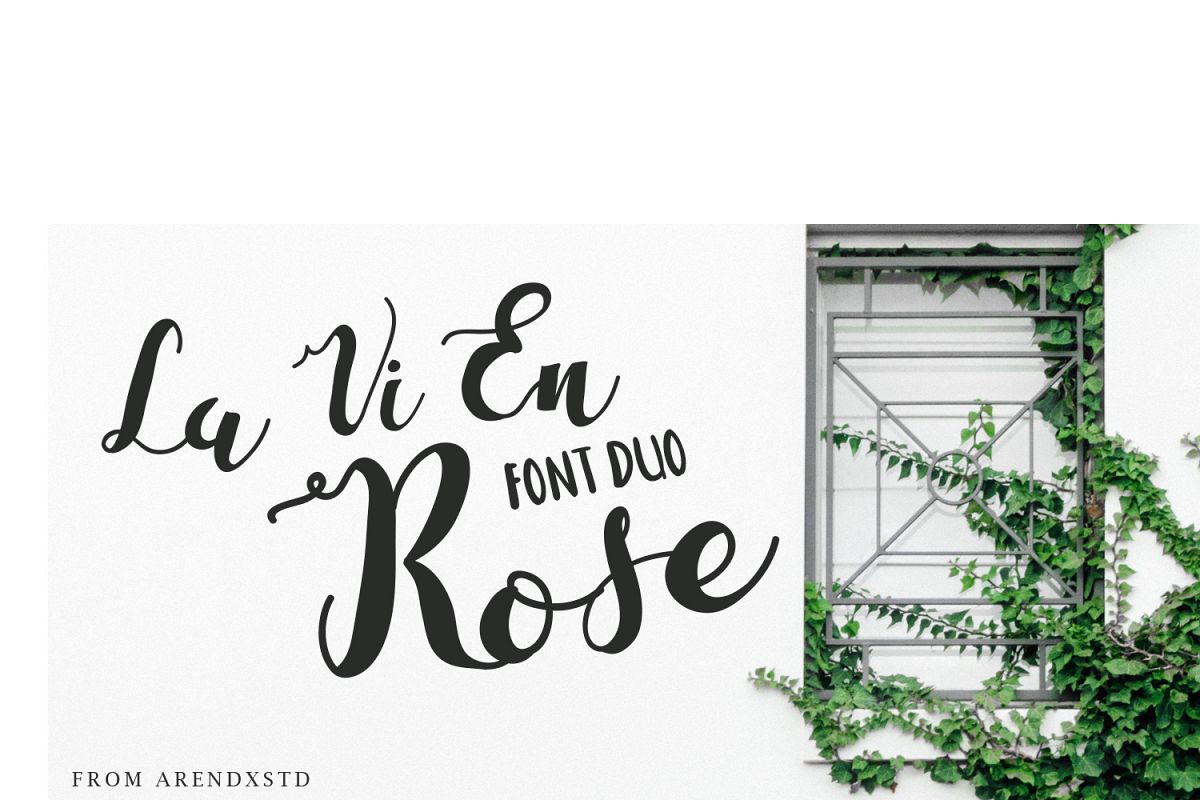
La Vi En Rose is a stunningly romantic and delicate font with a charming twist. It will turn any design project into a true stand out!La Vi En Rose is a stunningly romantic and delicate font with a charming twist. It will turn any design project into a true stand out!
- alternate
- ligature